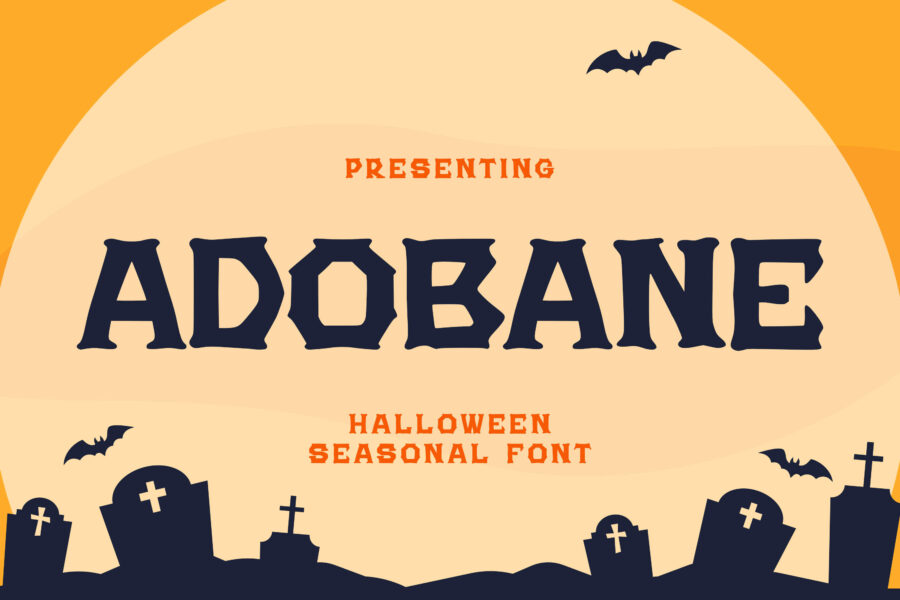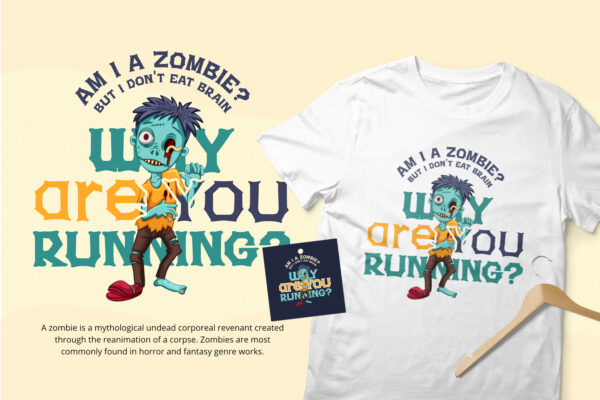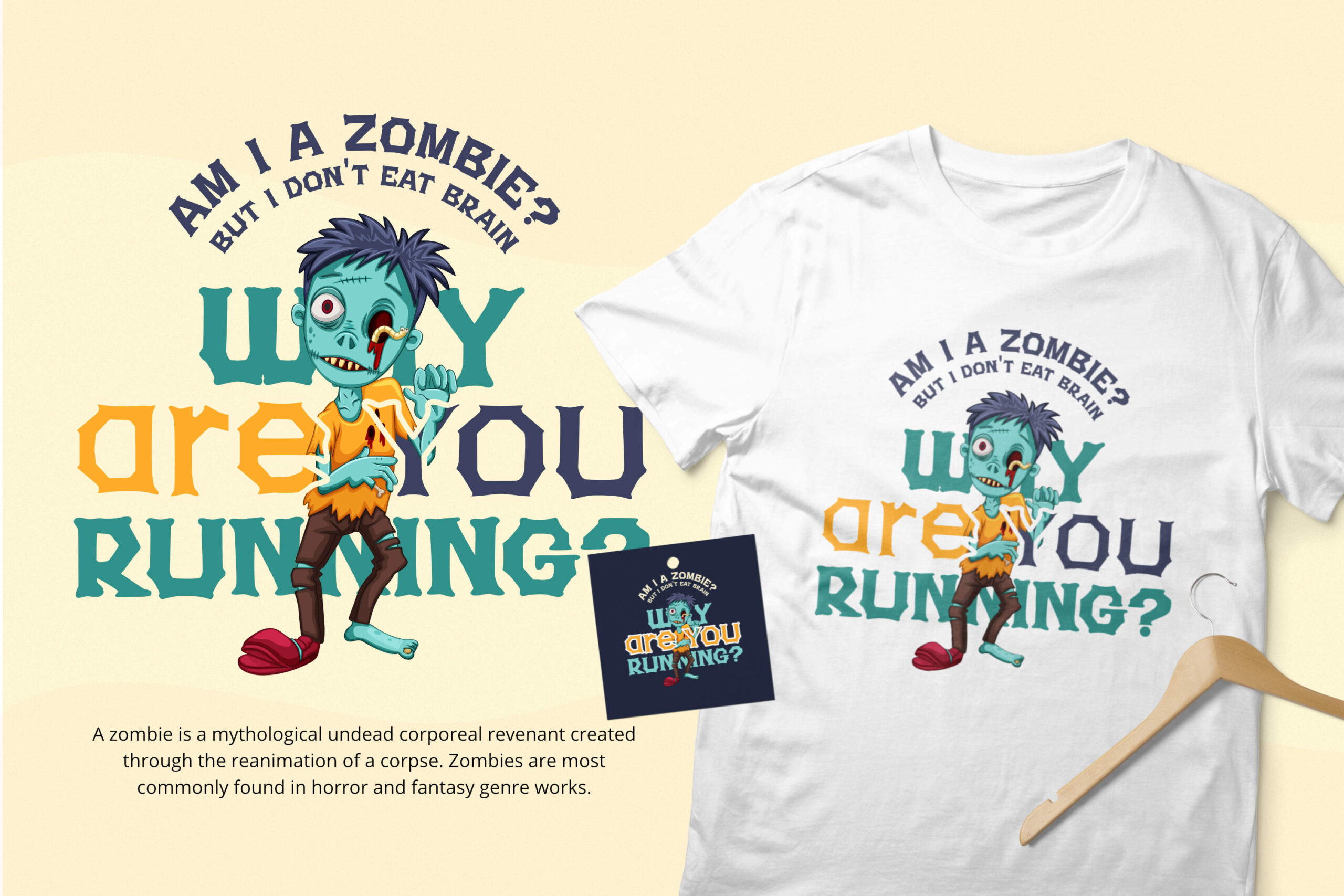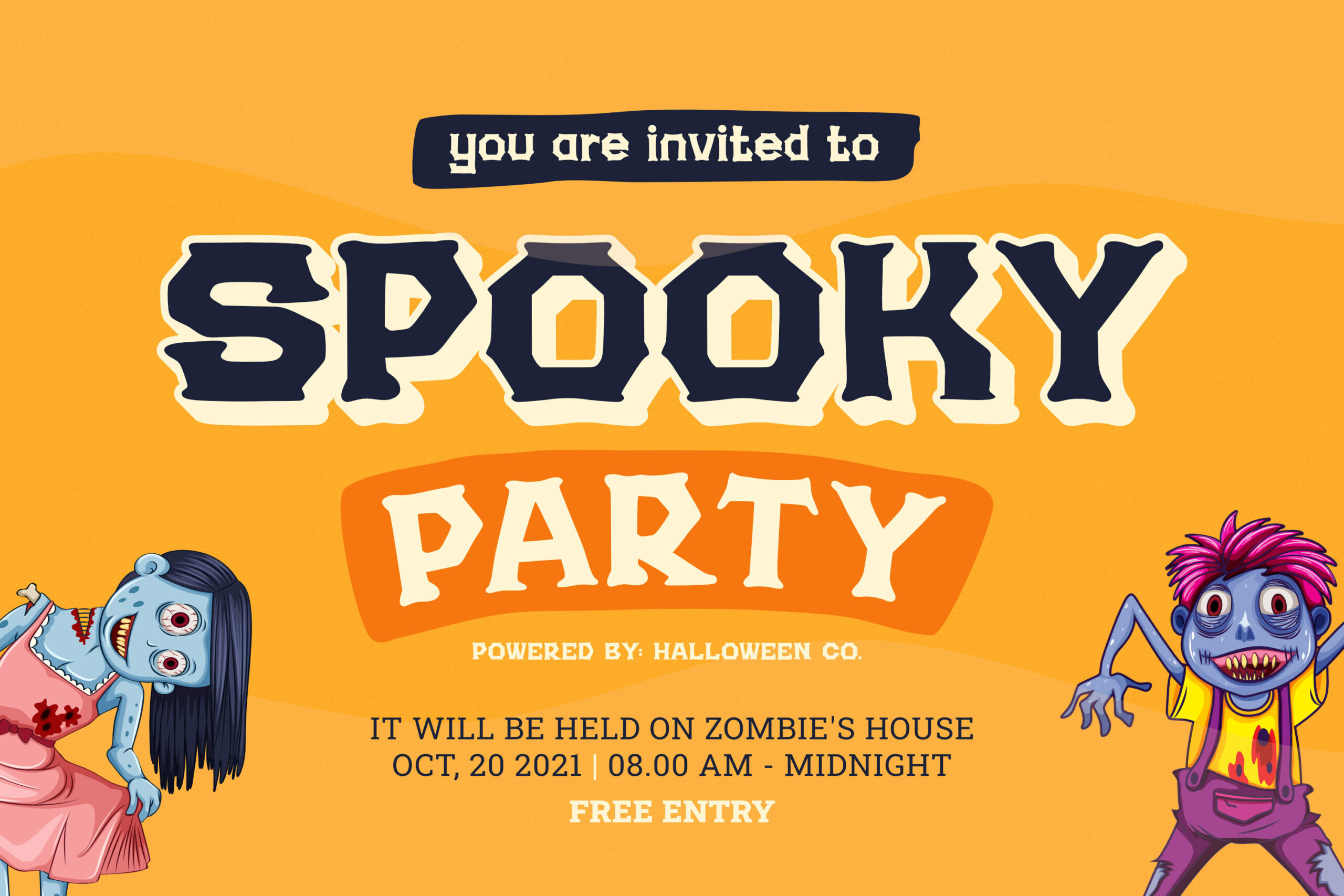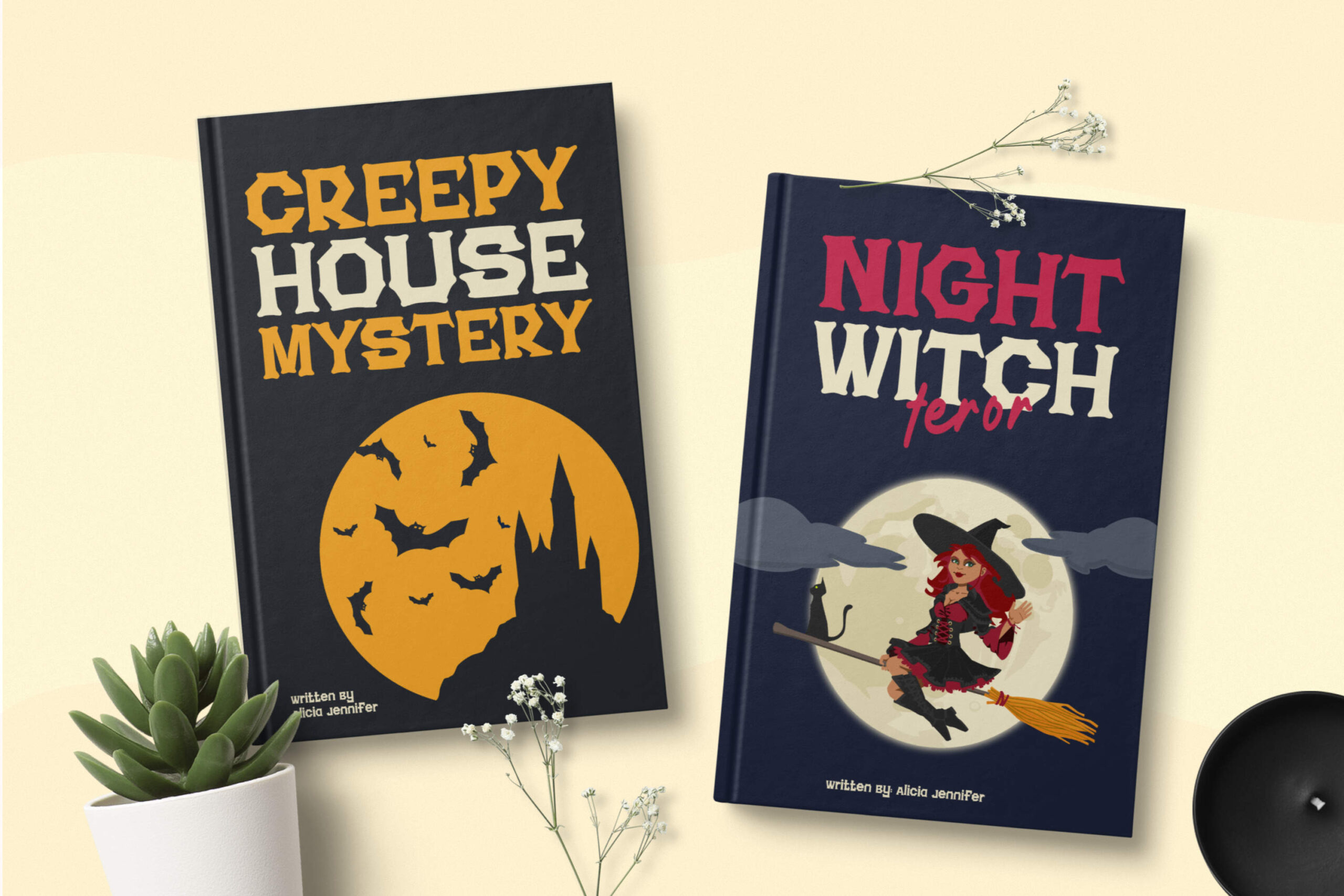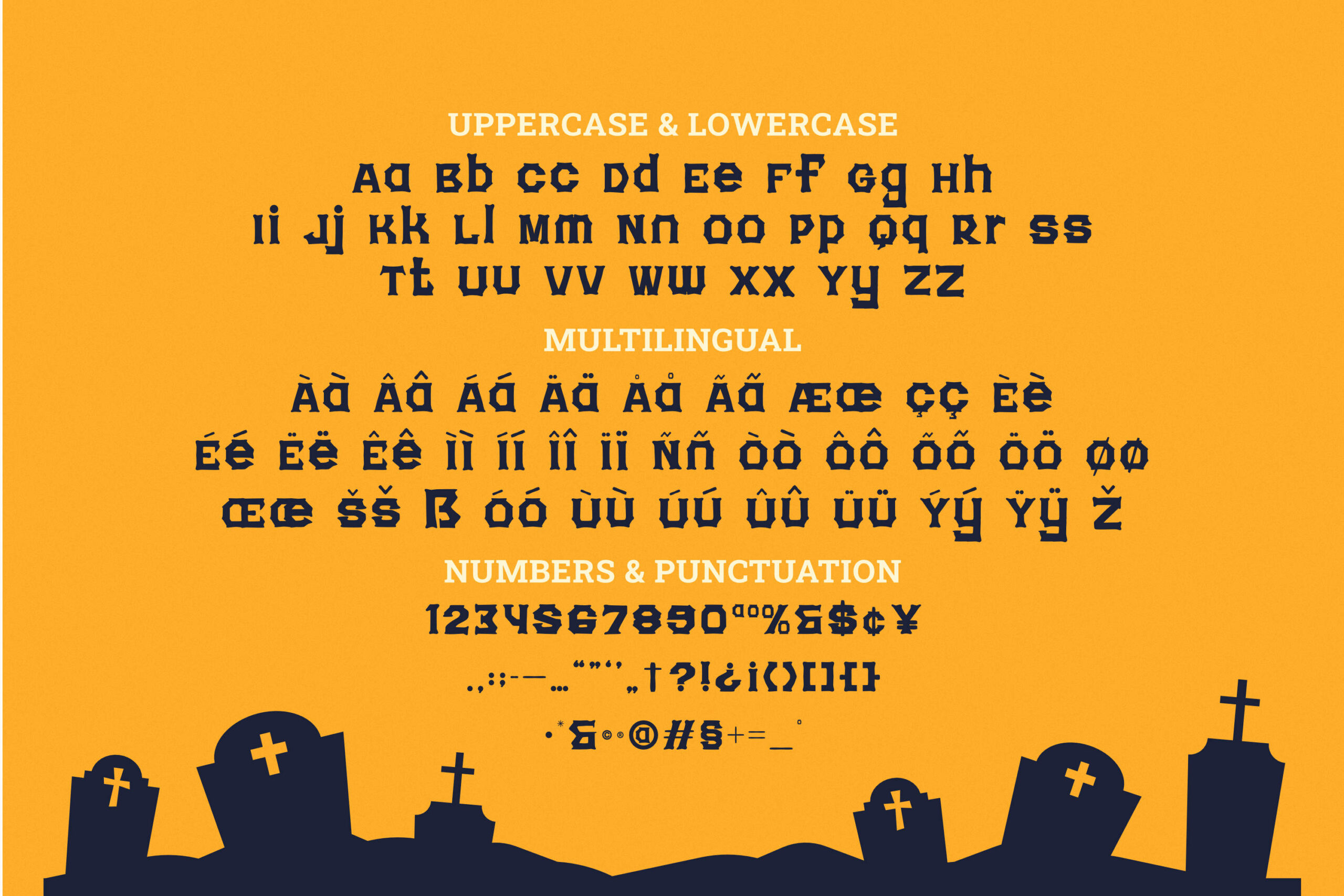
Adobane is a playful and spooky display font crafted especially for Halloween-themed designs. With its irregular, bold letterforms and jagged edges, Adobane captures the quirky and creepy essence of Halloween in a fun and friendly way. This font is perfect for party invitations, posters, children’s horror stories, or any design needing a touch of eerie charm.
Packed with uppercase, lowercase, multilingual accents, and full punctuation, Adobane ensures versatility and ease of use for both digital and print projects. Whether you’re designing for haunted houses, Halloween merch, or themed packaging, Adobane offers a balance of readability and personality that stands out in seasonal visuals.